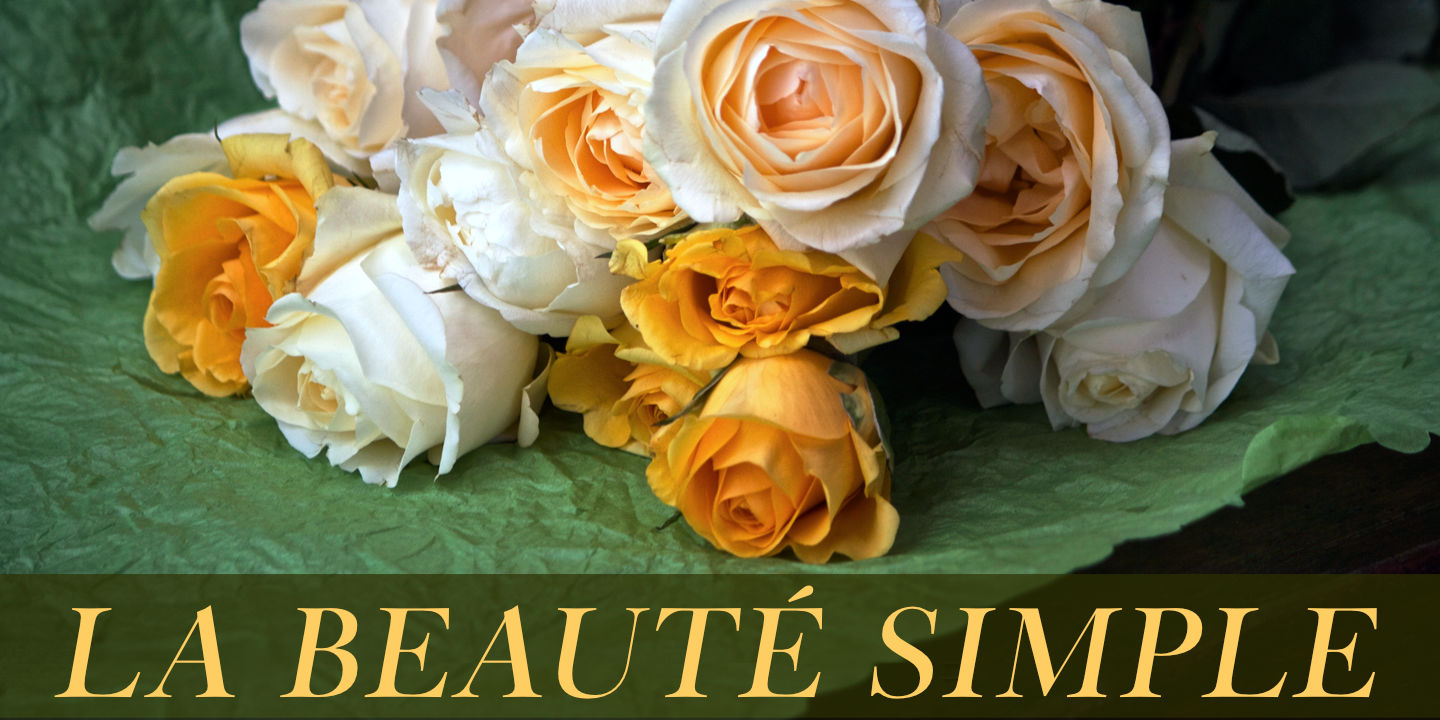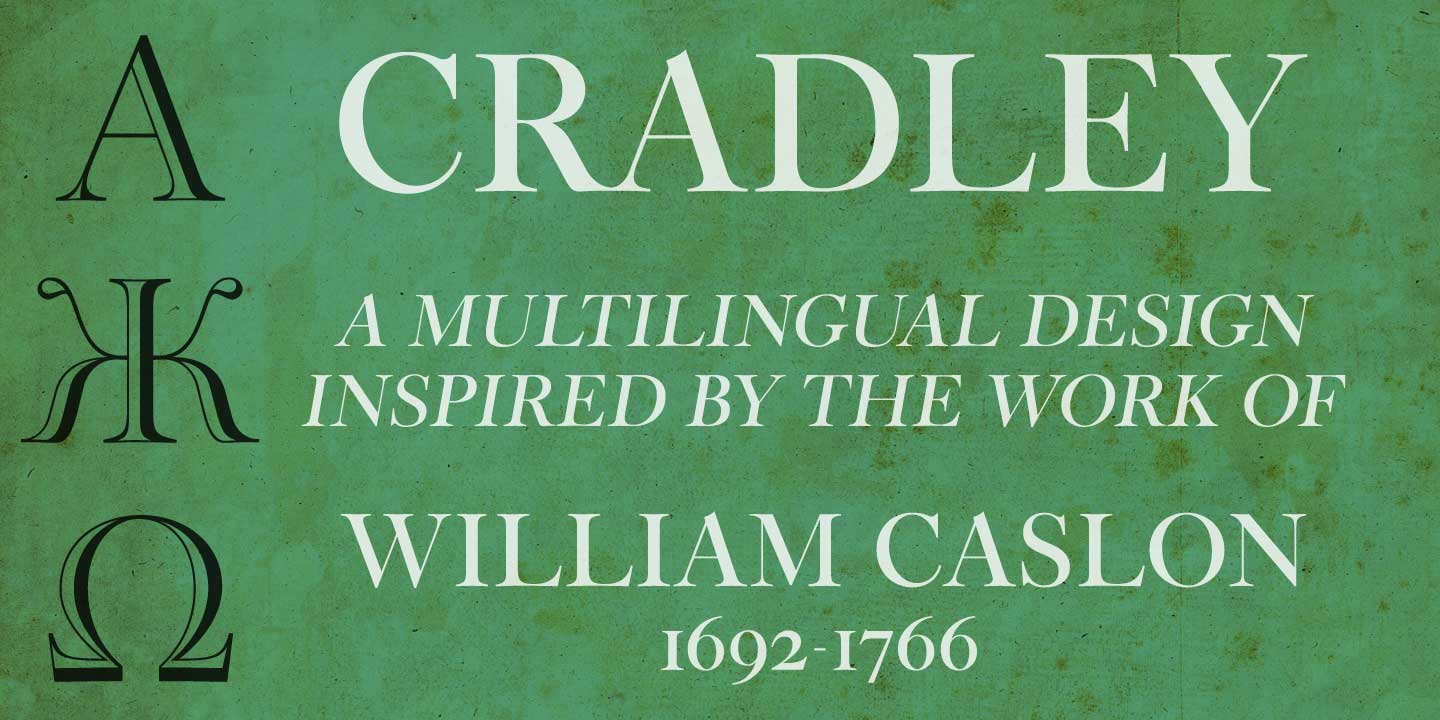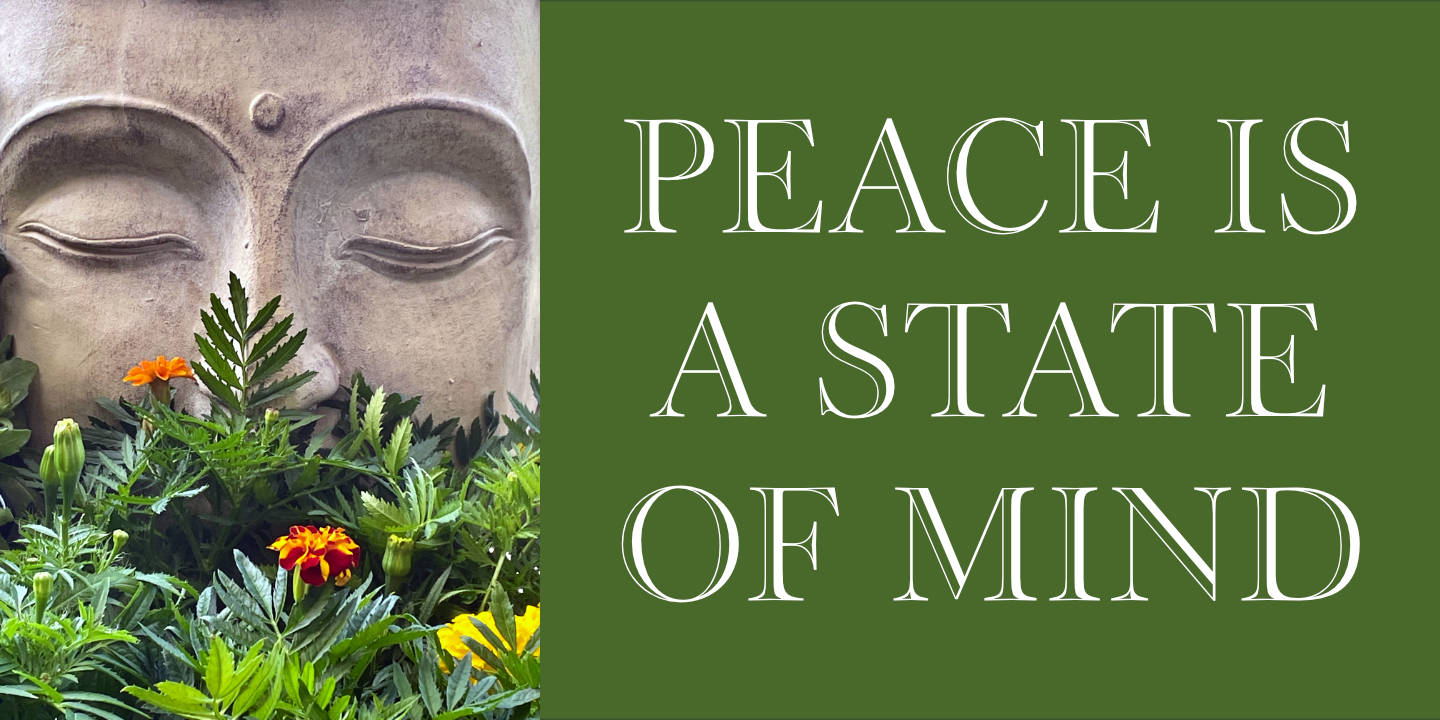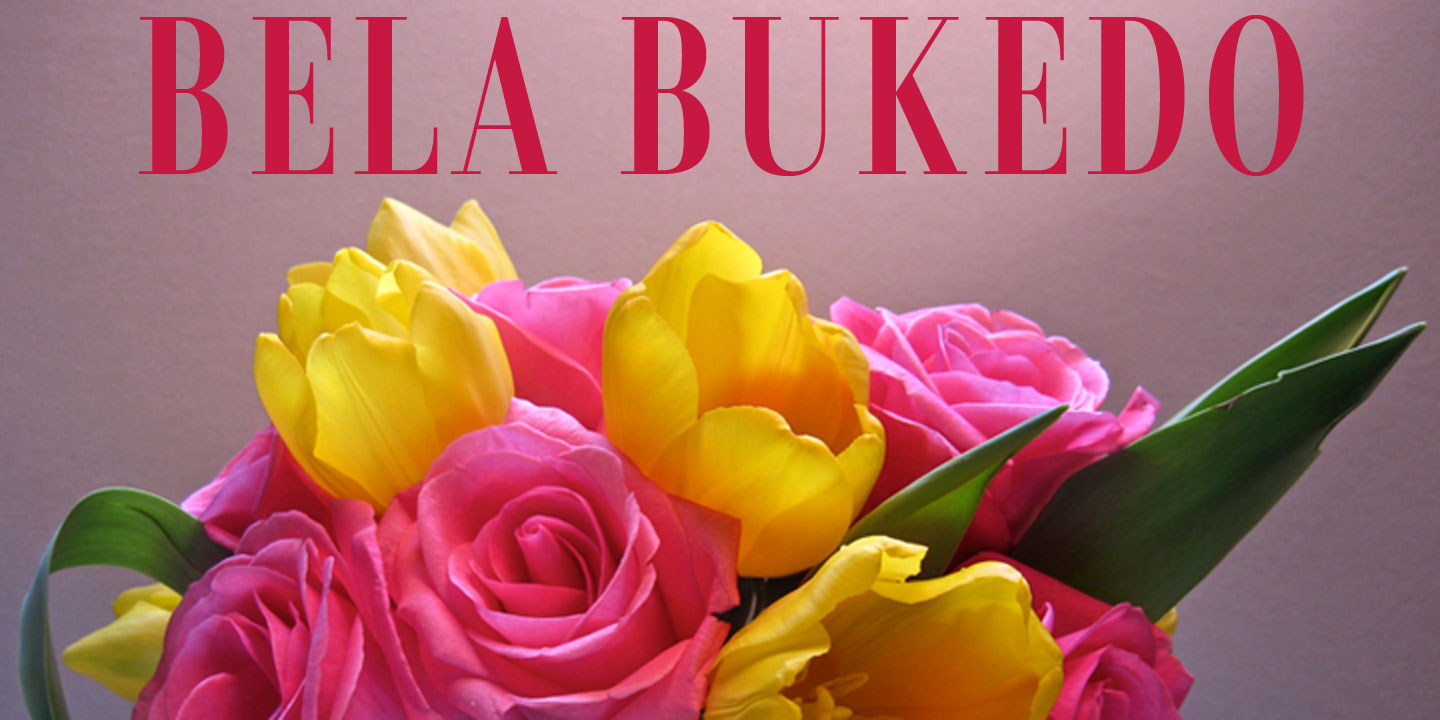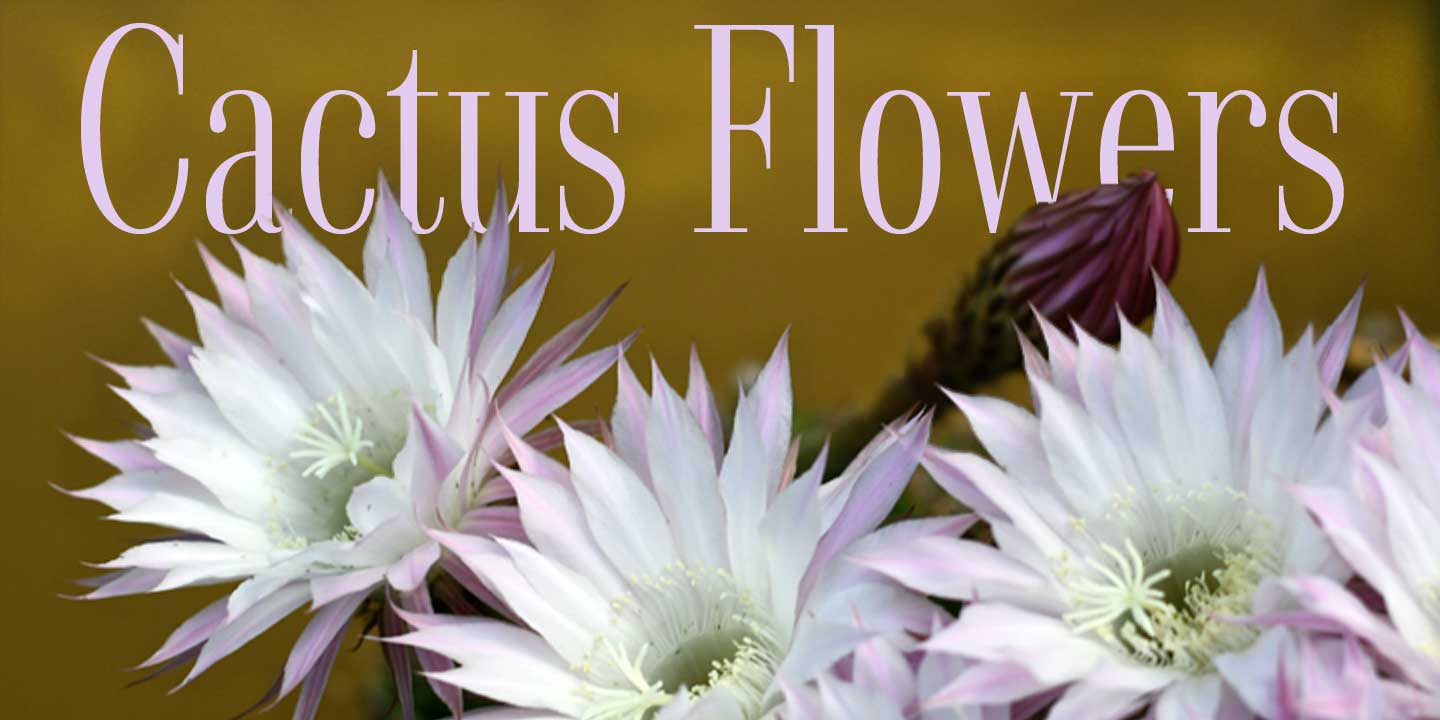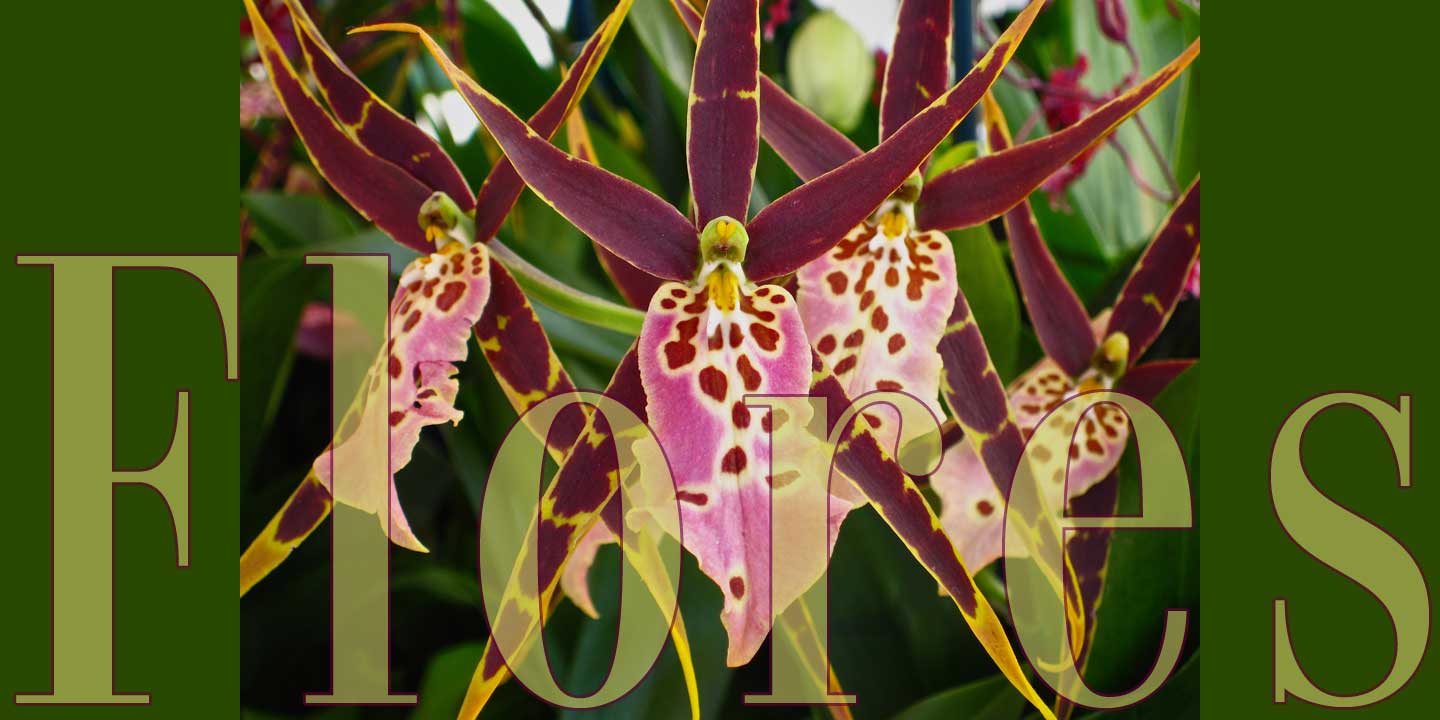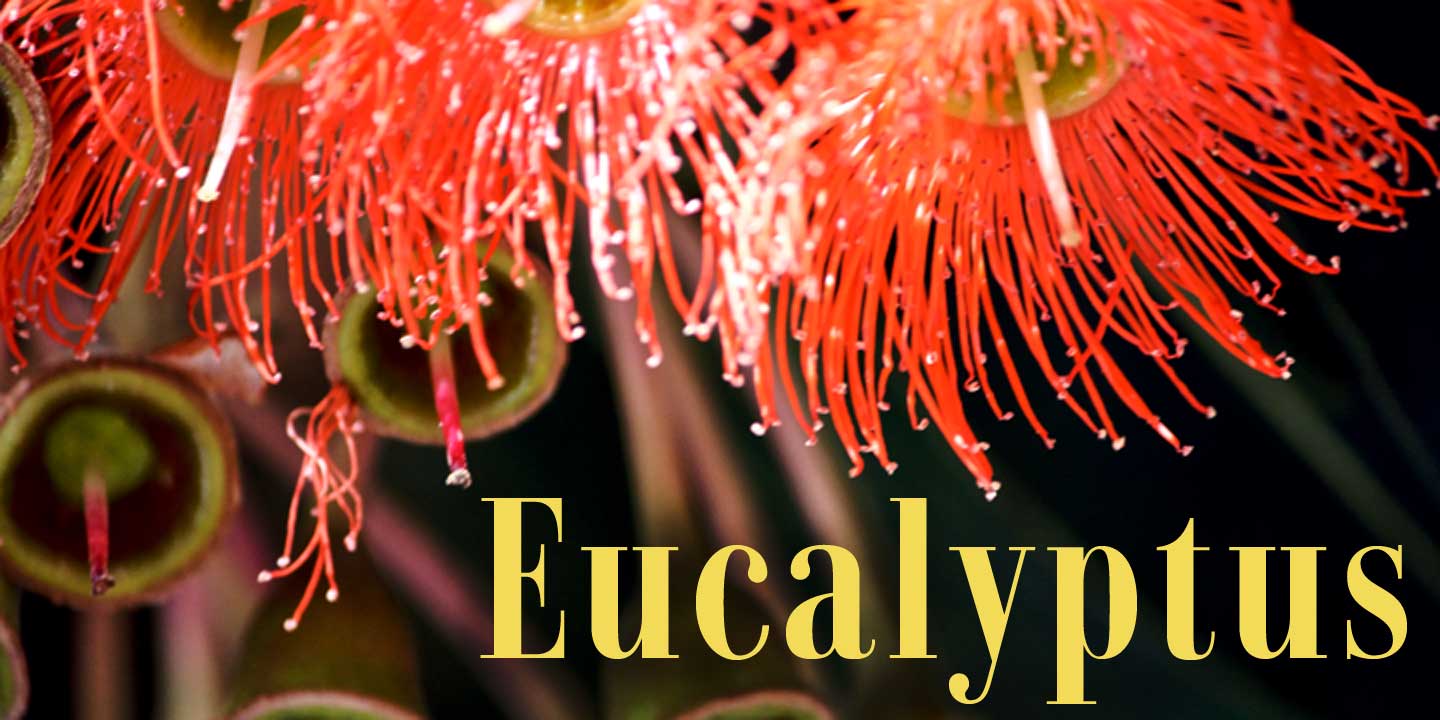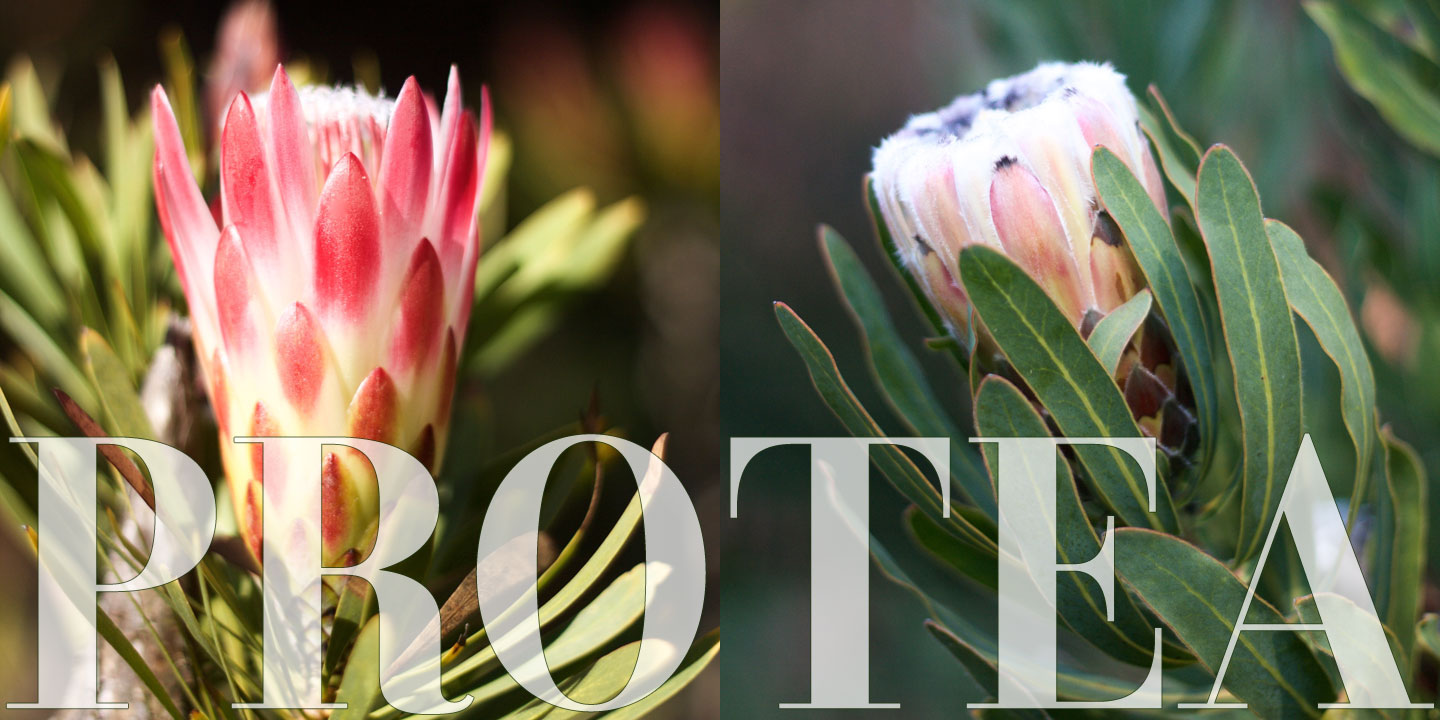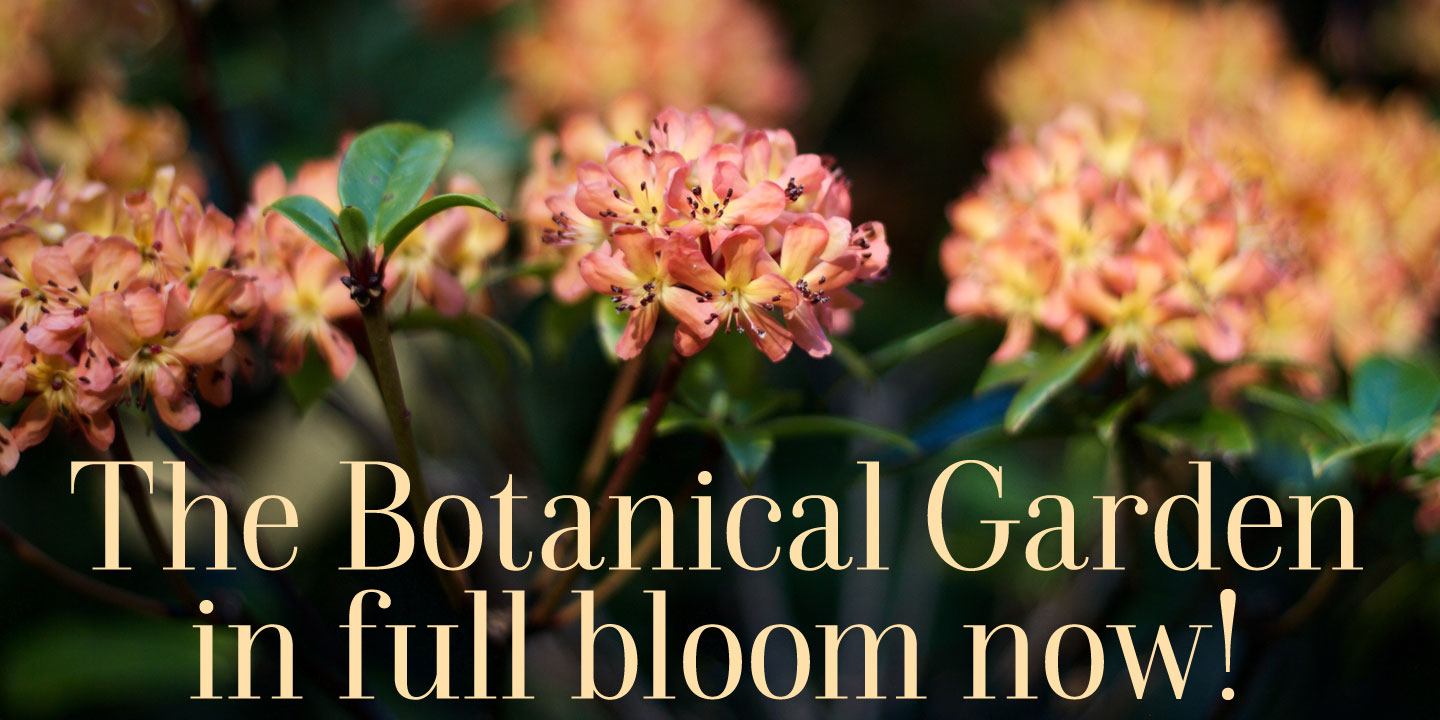
Cradley Title
Cradley™ was inspired by the work of William Caslon, considered by some to be the finest type designer of the Baroque era. With its classic proportions, beautifully bracketed serifs, and high contrast, Cradley is a contemporary design with a Baroque spirit.
Cradley Open
Cradley™ was inspired by the work of William Caslon, considered by some to be the finest type designer of the Baroque era. With its classic proportions, beautifully bracketed serifs, and high contrast, Cradley is a contemporary design with a Baroque spirit.
Cradley Italic
Cradley™ was inspired by the work of William Caslon, considered by some to be the finest type designer of the Baroque era. With its classic proportions, beautifully bracketed serifs, and high contrast, Cradley is a contemporary design with a Baroque spirit.
Dionisio Light Cond
Dionisio was inspired by the extremely condensed and elegant Ransahoff, but with the warmth and sensuousness of Bodoni. Dionisio brings together the best of both, making it the perfect choice where a slender, sophisticated typeface is needed.
Dionisio Regular Cond
Dionisio was inspired by the extremely condensed and elegant Ransahoff, but with the warmth and sensuousness of Bodoni. Dionisio brings together the best of both, making it the perfect choice where a slender, sophisticated typeface is needed.
Dionisio Medium Cond
Dionisio was inspired by the extremely condensed and elegant Ransahoff, but with the warmth and sensuousness of Bodoni. Dionisio brings together the best of both, making it the perfect choice where a slender, sophisticated typeface is needed.
Dionisio Bold Condensed
Dionisio was inspired by the extremely condensed and elegant Ransahoff, but with the warmth and sensuousness of Bodoni. Dionisio brings together the best of both, making it the perfect choice where a slender, sophisticated typeface is needed.
Dionisio XBold Cond
Dionisio was inspired by the extremely condensed and elegant Ransahoff, but with the warmth and sensuousness of Bodoni. Dionisio brings together the best of both, making it the perfect choice where a slender, sophisticated typeface is needed.
Dionisio Light
Dionisio was inspired by the extremely condensed and elegant Ransahoff, but with the warmth and sensuousness of Bodoni. Dionisio brings together the best of both, making it the perfect choice where a slender, sophisticated typeface is needed.
Dionisio Regular
Dionisio was inspired by the extremely condensed and elegant Ransahoff, but with the warmth and sensuousness of Bodoni. Dionisio brings together the best of both, making it the perfect choice where a slender, sophisticated typeface is needed.
Dionisio Medium
Dionisio was inspired by the extremely condensed and elegant Ransahoff, but with the warmth and sensuousness of Bodoni. Dionisio brings together the best of both, making it the perfect choice where a slender, sophisticated typeface is needed.
Dionisio Bold
Dionisio was inspired by the extremely condensed and elegant Ransahoff, but with the warmth and sensuousness of Bodoni. Dionisio brings together the best of both, making it the perfect choice where a slender, sophisticated typeface is needed.
Dionisio Extra Bold
Dionisio was inspired by the extremely condensed and elegant Ransahoff, but with the warmth and sensuousness of Bodoni. Dionisio brings together the best of both, making it the perfect choice where a slender, sophisticated typeface is needed.
Eden CT Light
Eden, originally designed by the American type designer Robert H. Middleton in 1934, is a compact art deco typeface with thin slab serifs. Eden CT includes support of most European languages.
Eden CT Medium
The Xavier™ family of typefaces was inspired by the delightful art deco typeface called Ashley Crawford, originally designed in 1930 by Ashley Havinden.
Xavier Inline
The Xavier™ family of typefaces was inspired by the delightful art deco typeface called Ashley Crawford, originally designed in 1930 by Ashley Havinden.